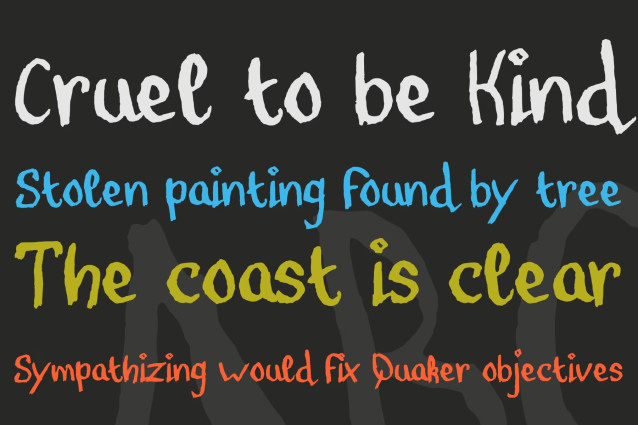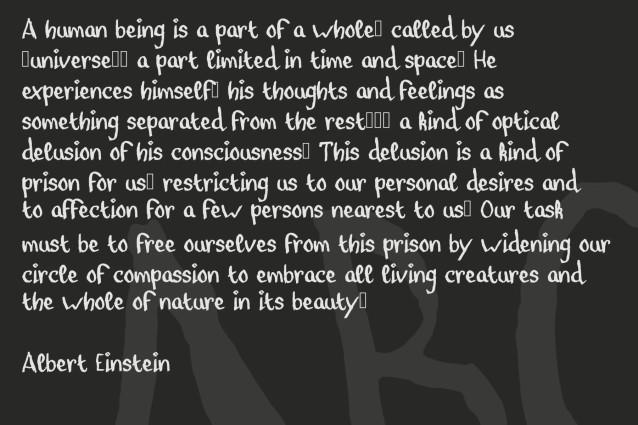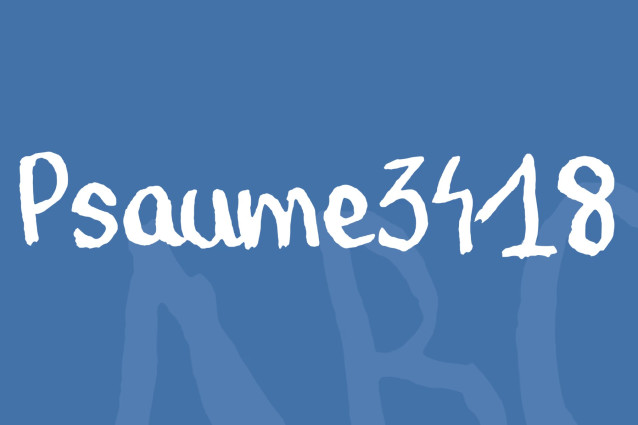
Psaume3418 Font, It would be a perfect choice to design posters, affiches, logos, t-shirt and magazine prints, eye-pleasing typographic designs and more.
Psaume3418 Font
| Classification: | Display Fonts, Playful / Fun Fonts |